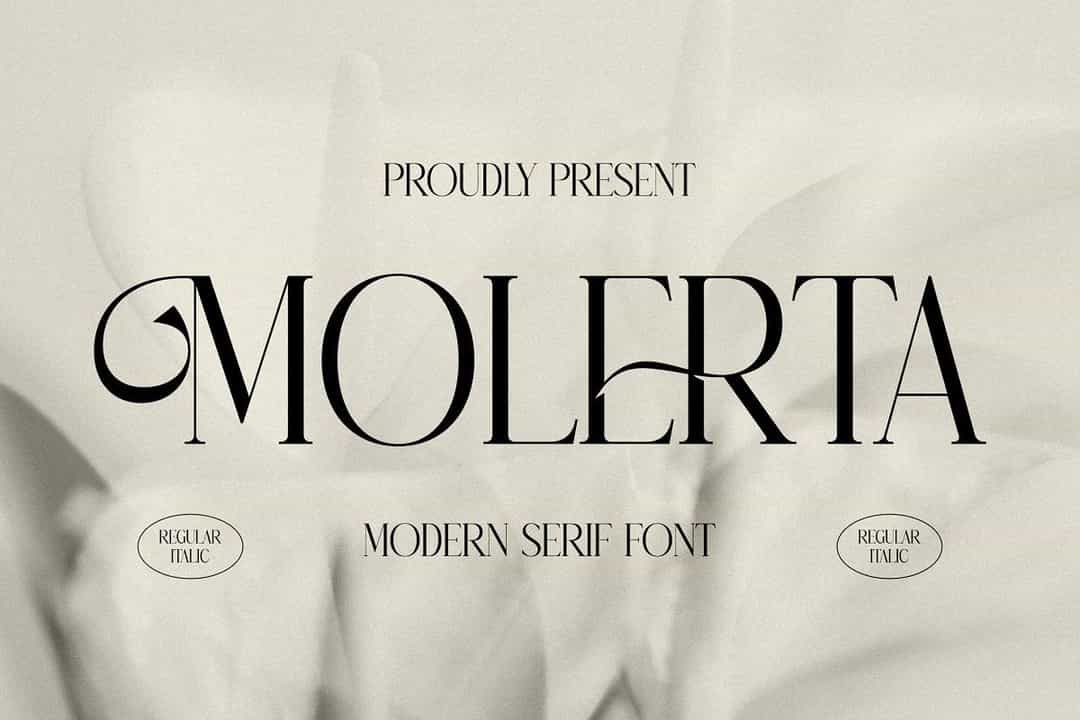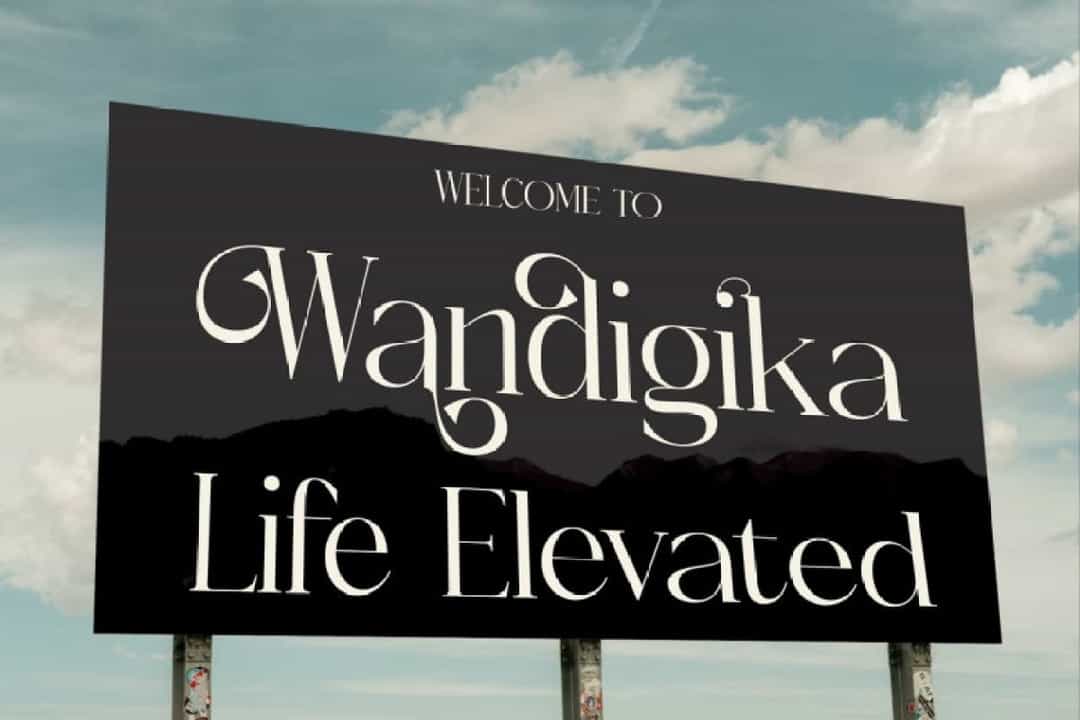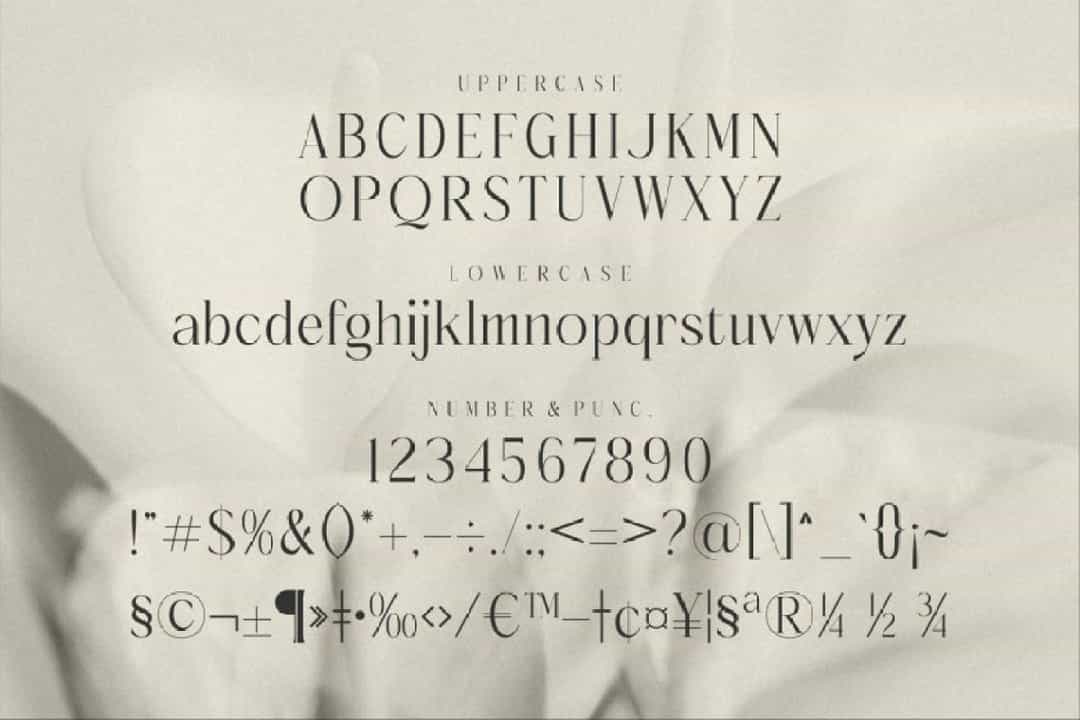
Molerta is a timeless yet contemporary serif font with its distinct style and contemporary appearance, perfect for creating elegant logos, movie/book name designs, fashion brand clothing label logos, magazine letters, quotes, etc.